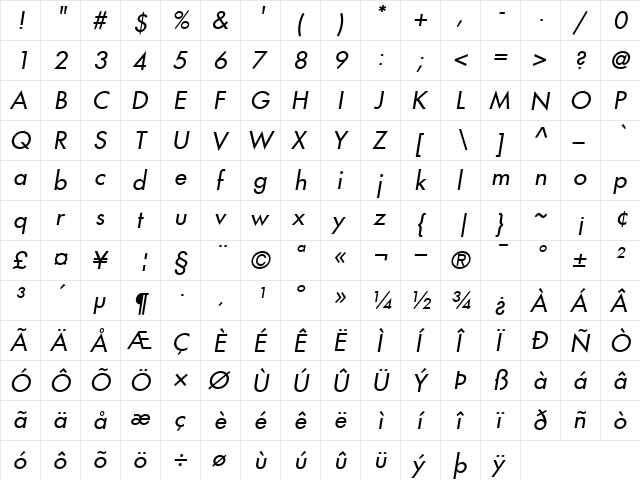
Futura-Medium MediumItalic Font Preview
Futura-Medium MediumItalic
Futura-Medium MediumItalic Font Details
Design Context for Futura-Medium Typeface
Futura-Medium channels digital-age aesthetics through its sharp, structured letterforms — ideal for brands that want to signal innovation. Its italic angle brings a sense of urgency and motion to the letterforms.
Pro Tip: Use Futura-Medium in combination with a neutral sans for body text. Let it define the brand voice in headlines while keeping reading comfortable elsewhere.